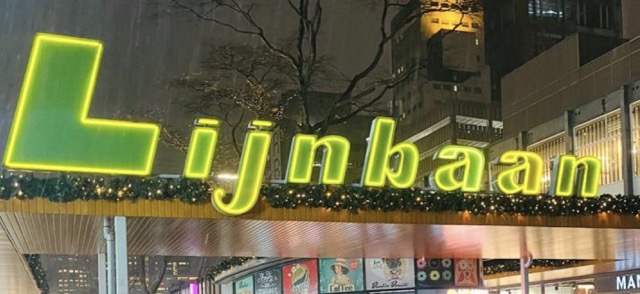
Is it a custom typeface?
Yes, it appears to be custom.
Domaine Sans could be manipulated to emulate it. Charter Oak has a similar vibe.
Vette Cursief Antieke is a typeface similar to Charter Oak that was issued in the Netherlands in 1950. Given the place and time (Rotterdam 1953), I can image that the artist was inspired by it. The typeface was known as Old Gothic Bold Italic in English.
The a and b of Vette Cursief Antieke are spot-on. Well spotted, Florian.